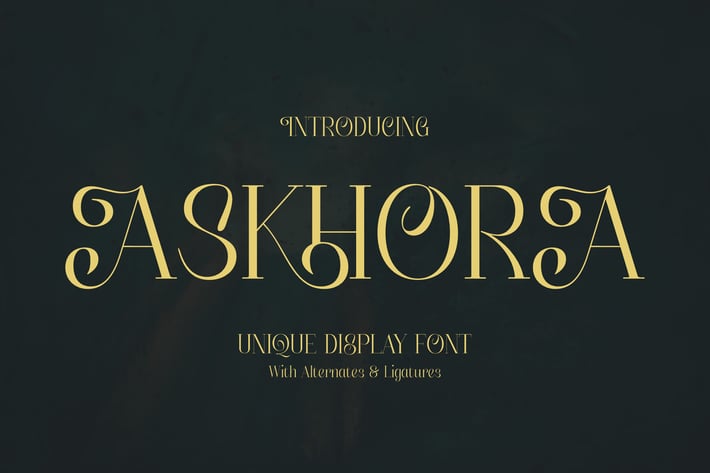
Askhora Unique Display Font
Askhora Unique Display Font blends classical serif sophistication with modern artistic flair. Each letterform is crafted with decorative curves and balanced proportions, offering a luxurious and theatrical aesthetic. Designed with alternates and ligatures, Askhora is the perfect choice for creating bold, memorable designs with timeless charm.
Alternates and ligatures for custom letter combinations
Elegant serif style with unique ornamental curves
Smooth kerning and refined detail
Ideal for both print and digital design
Editorial headlines and magazine titles
Luxury branding and product packaging
Posters, book covers, or cinematic designs
Event invitations and statement typography
* Artistic and vintage-inspired logos
Where elegance meets artistry — create timeless statements with Askhora’s refined display style.